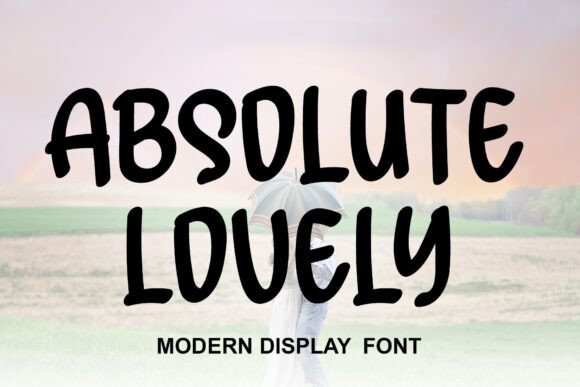
Absolute Lovely Font: Elevate Your Designs with this Stunning Display Font
In the world of typography, a beautiful font can make all the difference in creating stunning designs. If you’re a designer, crafty enthusiast, or simply someone who appreciates the art of typography, you’re in for a treat. Introducing Absolute Lovely, a gorgeous display font that’s perfect for magazines, crafts, and a wide range of design projects. In this article, we’ll dive into the world of Absolute Lovely, exploring its features, benefits, and uses, as well as provide tips on how to make the most of this incredible font.
What Makes Absolute Lovely Font So Special?
Absolute Lovely is a beautiful display font that’s designed to make a statement. Its elegant and refined aesthetic makes it perfect for a variety of design projects, from magazine headlines to craft tutorials. Here are some of the key features that make Absolute Lovely stand out:
- Elegant and Refined Aesthetic: Absolute Lovely boasts a sophisticated and elegant design that’s sure to elevate your designs.
- Perfect for Display Use: This font is specifically designed for display use, making it ideal for headlines, titles, and other prominent text elements.
- Magazine-Quality Design: With its clear and legible design, Absolute Lovely is perfect for magazine-style layouts, including article titles, section headers, and more.
- Crafty and DIY Friendly: The font’s playful and creative vibe makes it a great fit for craft tutorials, DIY projects, and other handmade designs.
The Benefits of Using Absolute Lovely Font
So, why should you add Absolute Lovely to your font library? Here are just a few benefits of using this stunning display font:
- Adds Visual Interest: With its unique and elegant design, Absolute Lovely adds a touch of sophistication and visual interest to any design project.
- Enhances Readability: The font’s clear and legible design ensures that your text is easy to read, even at larger sizes.
- Versatile and Flexible: Absolute Lovely can be used in a wide range of design projects, from digital designs to print materials.
How to Use Absolute Lovely Font in Your Designs
Now that we’ve explored the features and benefits of Absolute Lovely, let’s take a look at some of the ways you can use this font in your designs:
- Magazine Headlines: Use Absolute Lovely to create eye-catching headlines and section headers in your magazine-style layouts.
- Craft Tutorials: Add a touch of personality to your craft tutorials and DIY projects with this playful and creative font.
- Digital Designs: Use Absolute Lovely in your digital designs, including social media graphics, blog posts, and website headers.
- Print Materials: This font is perfect for print materials, including brochures, flyers, and business cards.
Tips and Tricks for Getting the Most Out of Absolute Lovely
To help you make the most of Absolute Lovely, here are a few tips and tricks to keep in mind:
- Experiment with Font Sizes: Don’t be afraid to experiment with different font sizes to find the perfect balance for your design.
- Pair with Other Fonts: Try pairing Absolute Lovely with other fonts to create a unique and visually interesting design.
- Use for Display Text: Remember that Absolute Lovely is specifically designed for display use, so use it sparingly for headlines and titles.
- Have Fun: Most importantly, have fun and be creative with Absolute Lovely!
In conclusion, Absolute Lovely is a stunning display font that’s perfect for designers, crafty enthusiasts, and anyone looking to add a touch of elegance and sophistication to their designs. With its clear and legible design, versatile and flexible aesthetic, and ease of use, this font is sure to become a favorite in your font library. So why wait? Add Absolute Lovely to your fonts library today and start creating spectacular designs!